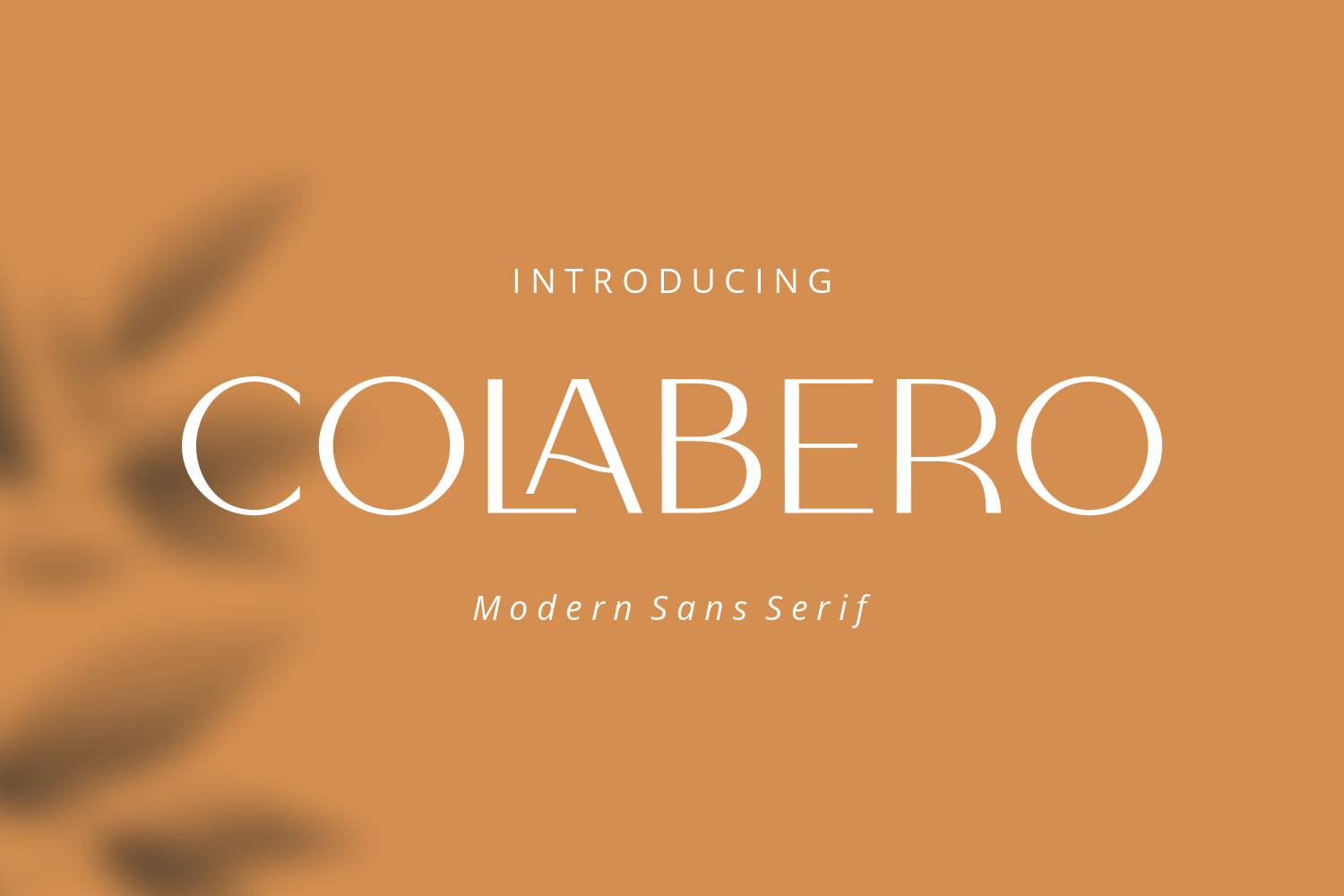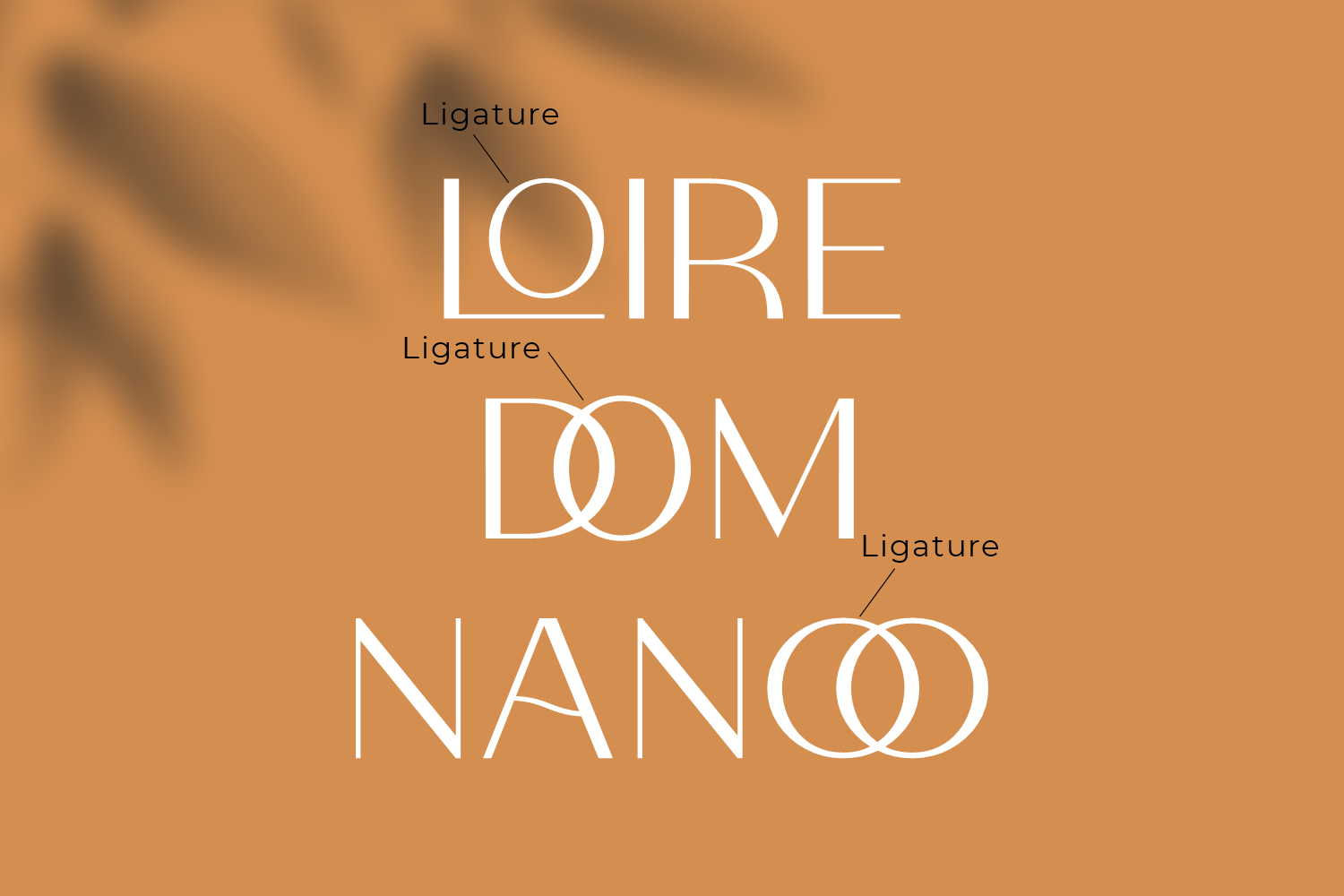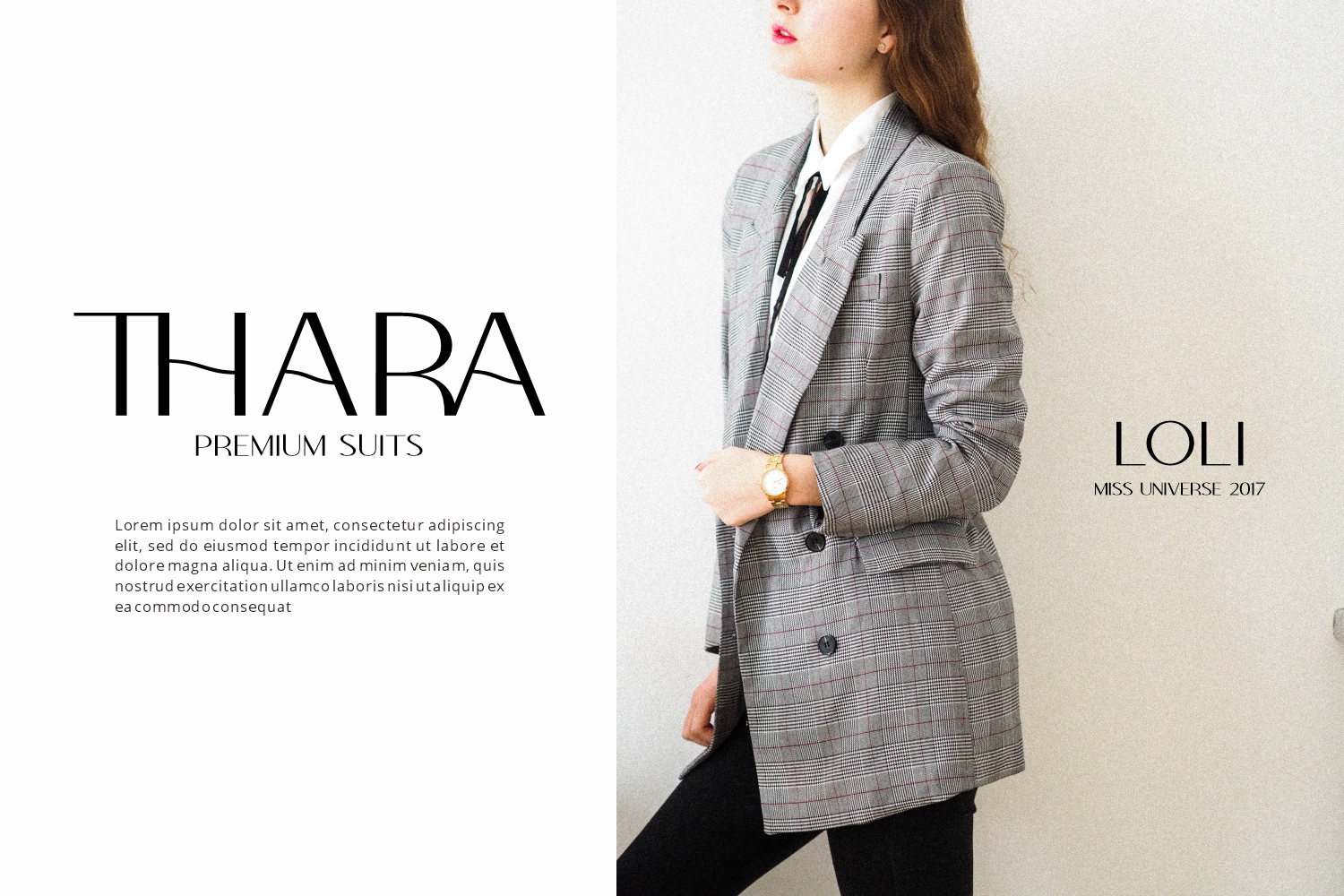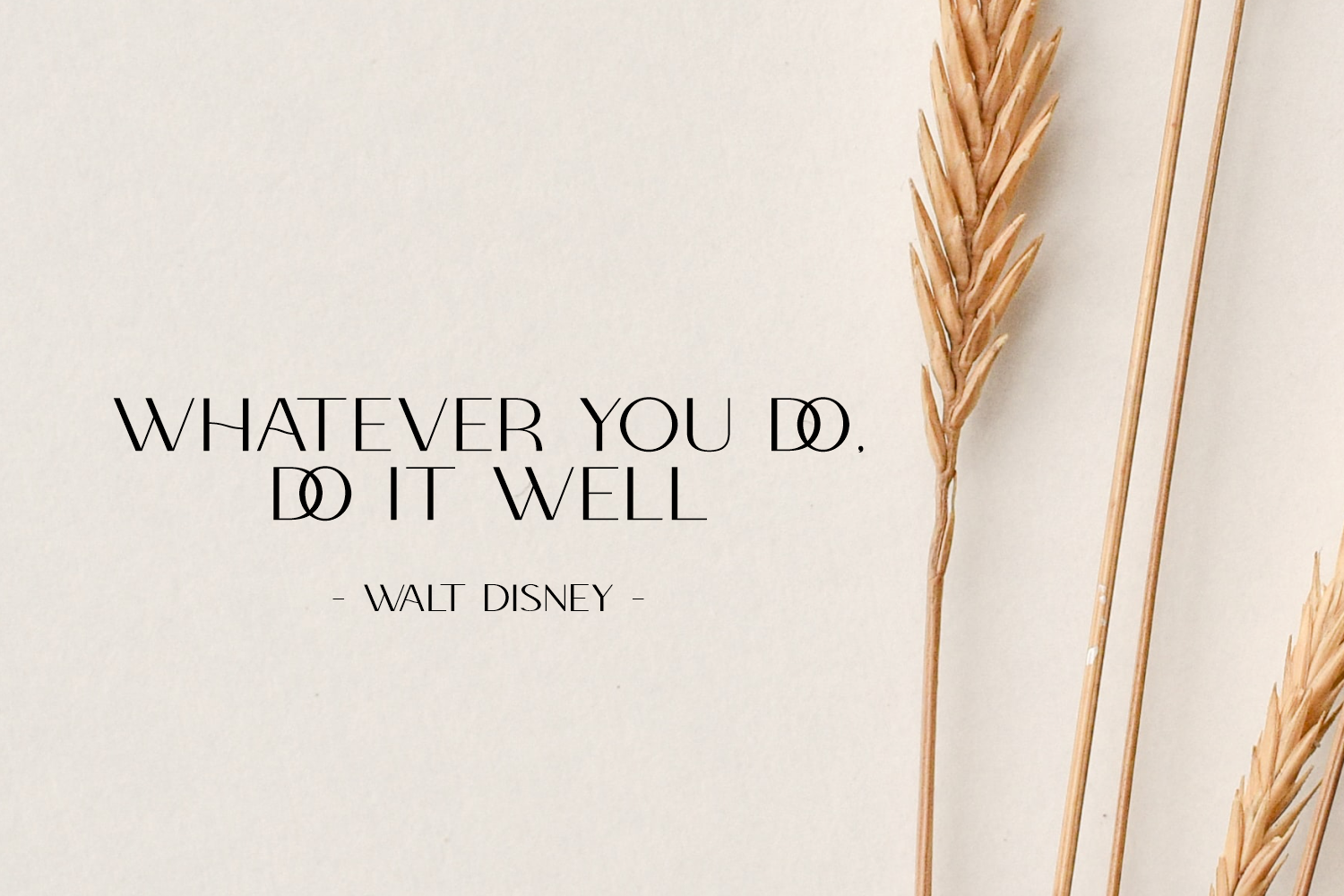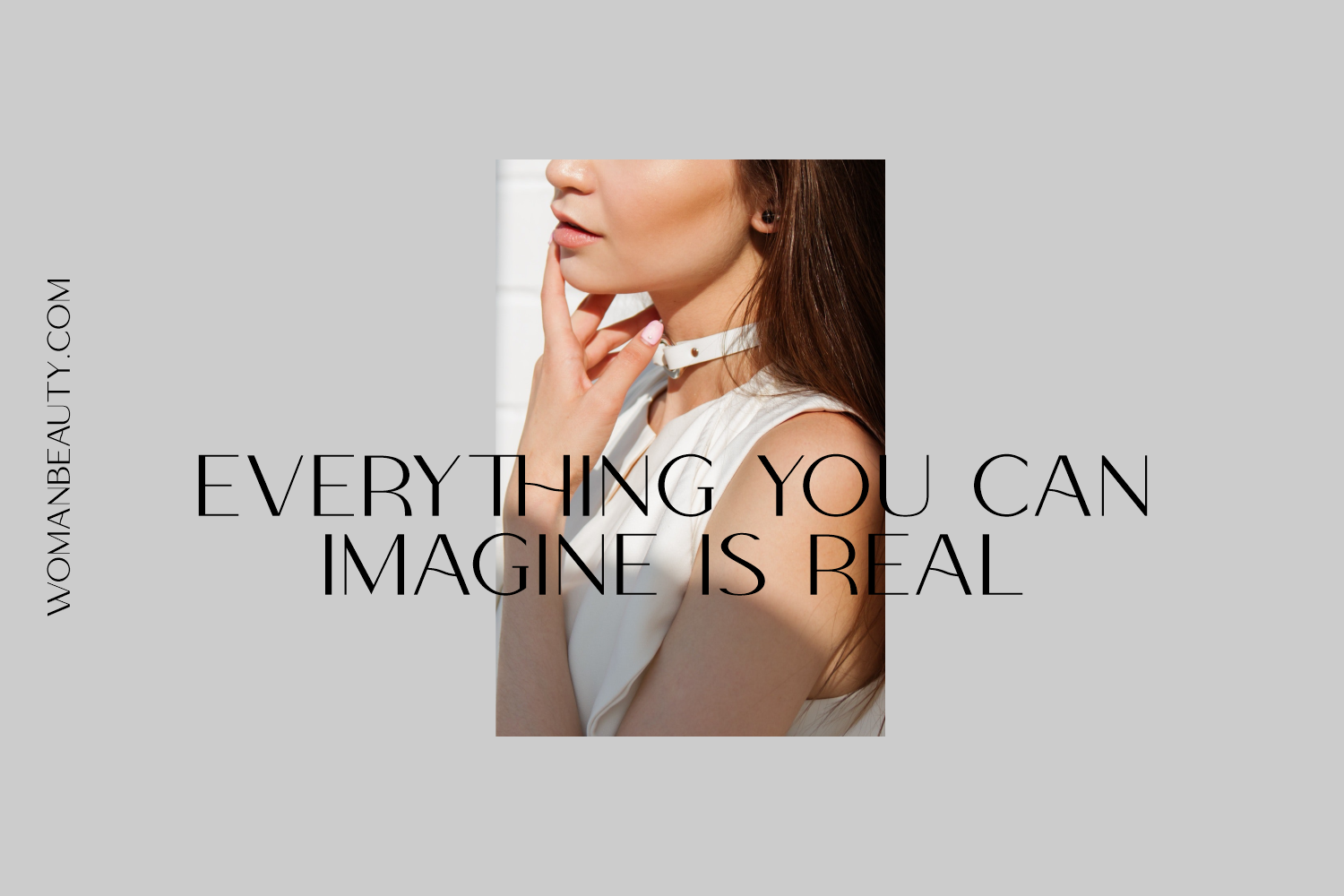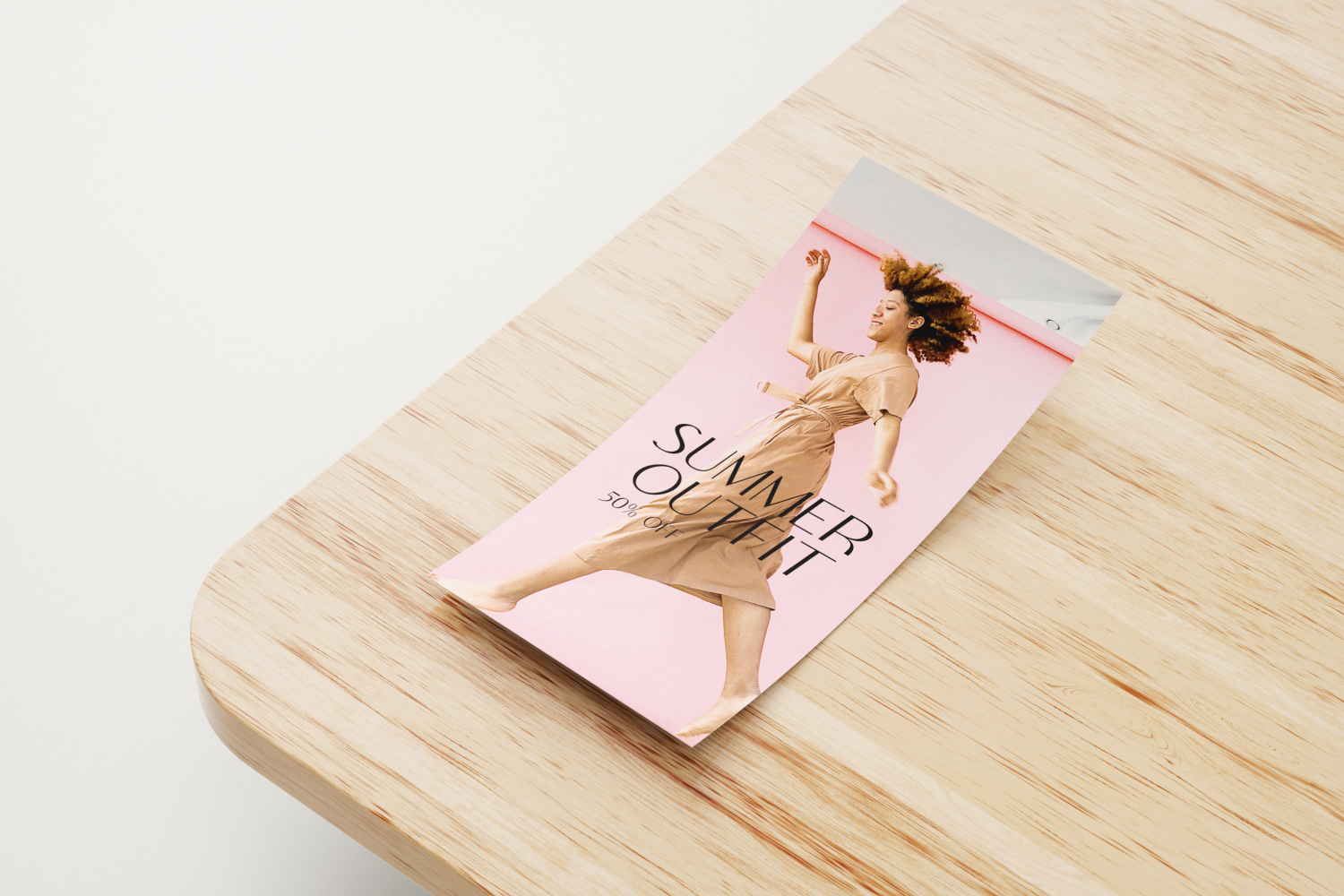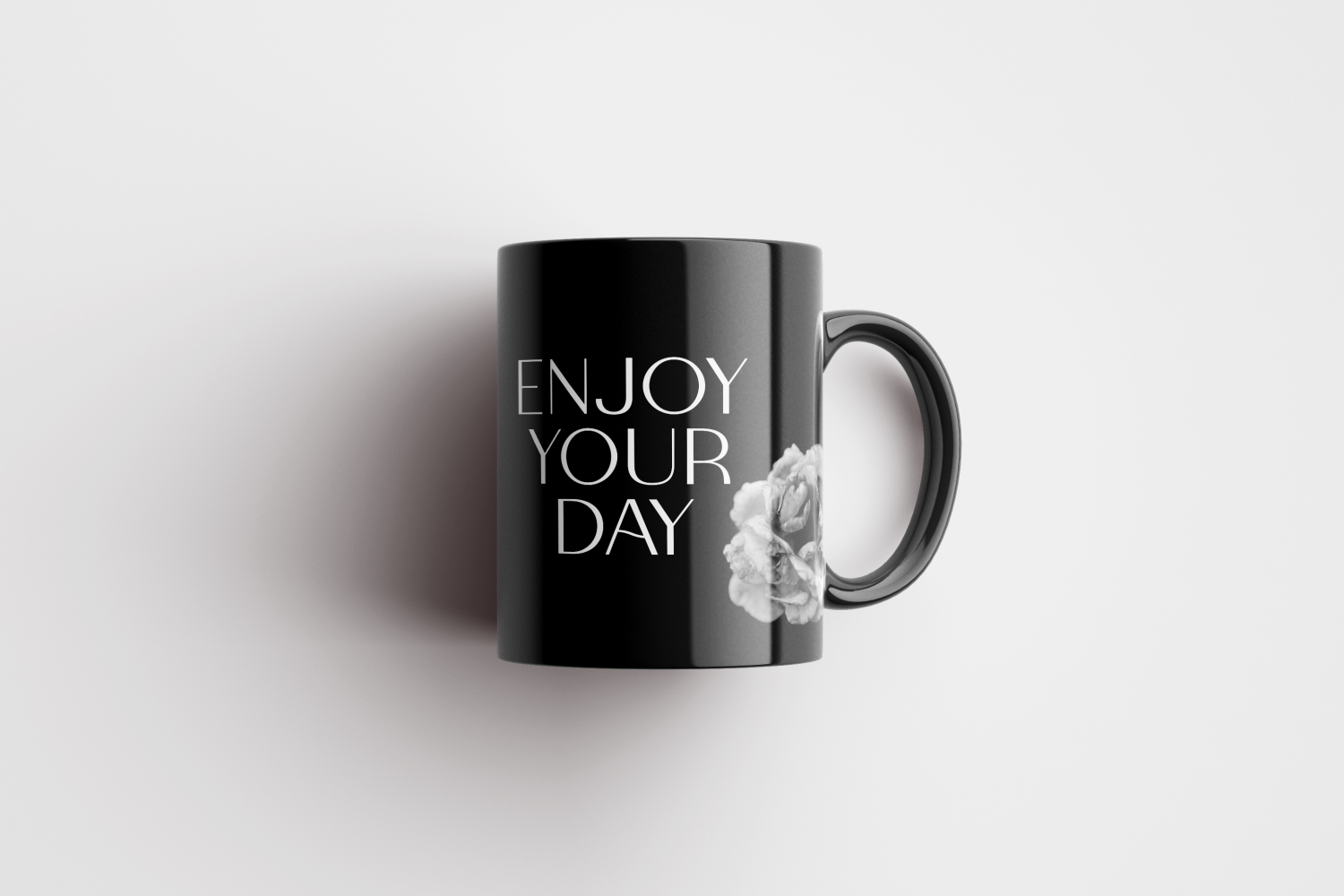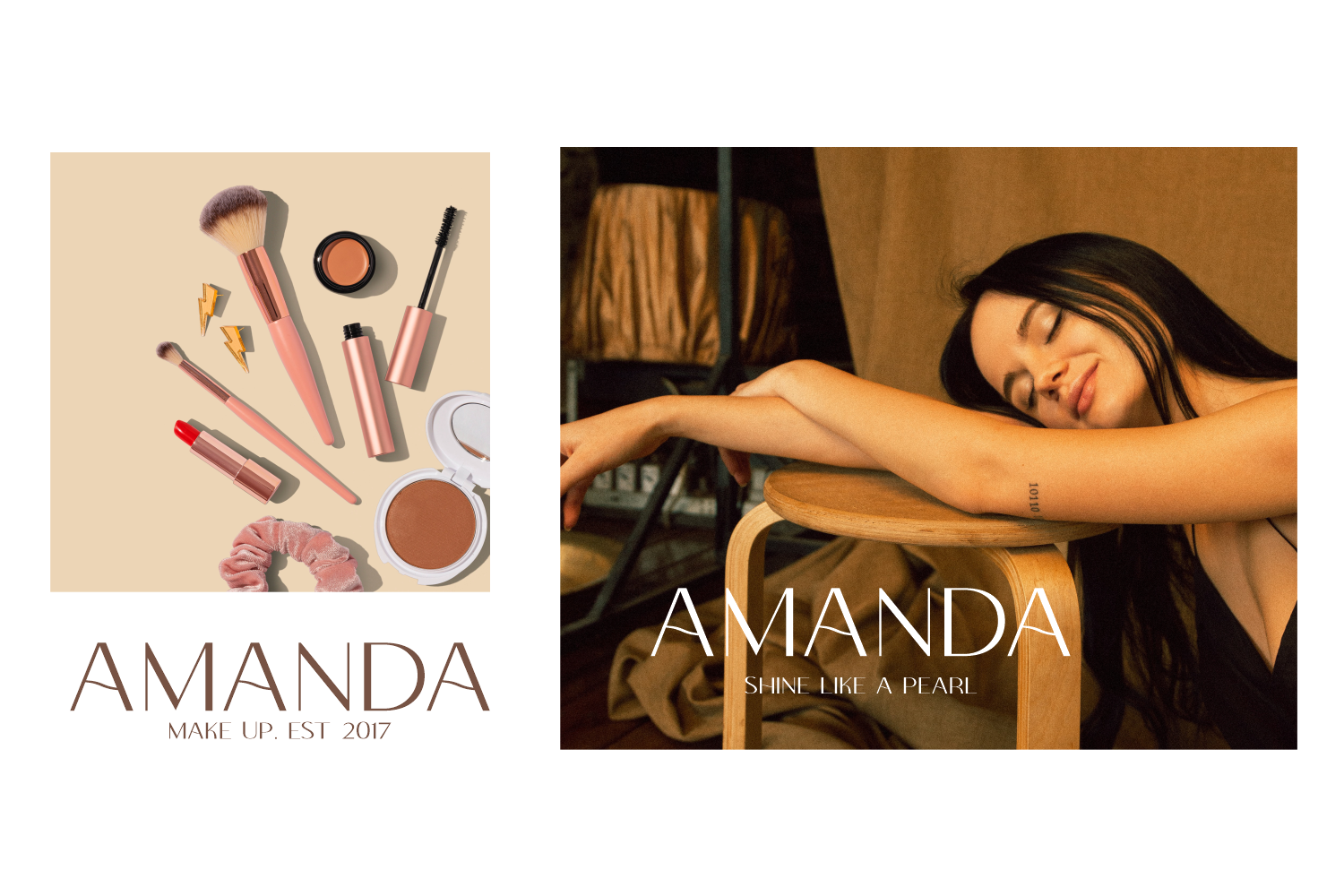
Colabero is a refined, high-contrast sans serif display typeface defined by its sophisticated geometry and unique structural flourishes. The letterforms feature extremely thin, elegant strokes paired with subtle, flowing curves that break up traditional rigid shapes, particularly noticeable in the crossbars and interior junctions of characters like ‘A’. This design choice creates a rhythmic, airy quality that feels both contemporary and poised. The overall mood is one of quiet luxury and deliberate minimalism, making it an excellent choice for high-end branding, editorial headers, and fashion-focused marketing materials. Its clean lines maintain legibility while offering a distinct, editorial aesthetic that stands out without overwhelming the surrounding layout.